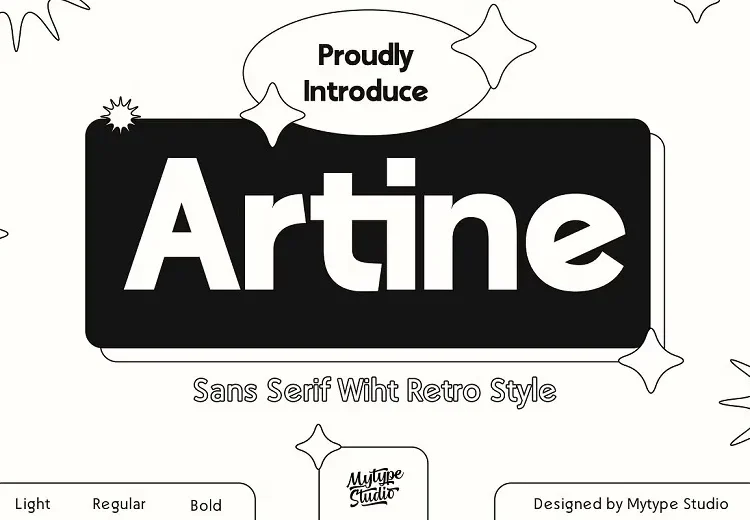
Artine Font
Artine draws inspiration from classic retro sans-serif aesthetics, blending old-school charm with contemporary design. This versatile font is available in three distinct weights: Light, Regular, and Bold, making it an adaptable choice for various design needs.
Whether you’re crafting a nostalgic project, developing a brand identity, or working on a typographic piece, Artine provides a unique fusion of vintage and modern elements. Its clean lines and thoughtful design ensure it adds both character and clarity to your work, bridging the gap between classic and current styles.
Perfect for evoking a sense of timelessness while maintaining a modern edge, Artine enhances your projects with its balanced and stylish appeal.